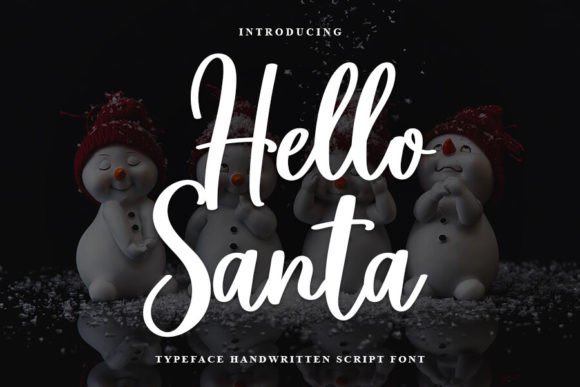
Hello Santa Font: A Timeless Classic for Modern Designs
Hello Santa Font is a stylish handwritten font that brings a touch of classic elegance to modern designs. Inspired by timeless calligraphy, this font boasts a contemporary atmosphere and impeccable form, making it perfect for a wide range of projects. In this article, we’ll dive into the world of Hello Santa Font, exploring its features, benefits, and uses.
Key Features of Hello Santa Font
- Balanced and Varied: Hello Santa Font strikes the perfect balance between thickness and thinness, creating a visually appealing and dynamic look.
- Contemporary Atmosphere: With its modern take on classic calligraphy, Hello Santa Font brings a fresh and sophisticated feel to any design.
- Impeccable Form: The font’s precise and elegant lines ensure that it remains legible and beautiful, even at smaller sizes.
- Handwritten Style: Hello Santa Font’s handwritten style adds a personal touch to designs, making them stand out from the crowd.
The Benefits of Using Hello Santa Font
Hello Santa Font offers a range of benefits that make it an excellent choice for designers and crafters. Some of the key advantages of using this font include:
- Enhances Readability: The font’s clear and balanced design ensures that text remains easy to read, even at smaller sizes.
- Boosts Creativity: Hello Santa Font’s unique and stylish design inspires creativity and imagination, making it perfect for projects that require a personal touch.
- Versatile: This font can be used for a wide range of projects, from logos and branding to invitations and digital marketing materials.
The Many Uses of Hello Santa Font
Hello Santa Font is a versatile font that can be used for a wide range of projects. Some popular uses for this font include:
- Logos and Branding: The font’s stylish and elegant design makes it perfect for logos, business cards, and other branding materials.
- Invitations and Events: Hello Santa Font’s handwritten style and classic elegance make it ideal for invitations, wedding stationery, and other event materials.
- Digital Marketing: The font’s modern take on classic calligraphy makes it perfect for digital marketing materials, such as social media graphics and email newsletters.
- Crafting and DIY: Hello Santa Font’s unique and stylish design makes it a great choice for crafters and DIY enthusiasts, particularly for projects such as handmade cards and gift tags.
The Style and Elegance of Hello Santa Font
Hello Santa Font’s stylish and elegant design is one of its standout features. The font’s precise and balanced lines create a beautiful, handwritten look that is both classic and modern.
The font’s design is inspired by timeless calligraphy, with a focus on elegance and sophistication. The result is a font that is both refined and stylish, making it perfect for projects that require a touch of class.
Tips and Tricks for Using Hello Santa Font
To get the most out of Hello Santa Font, here are a few tips and tricks to keep in mind:
- Experiment with Sizes: Hello Santa Font looks great at a range of sizes, from small and delicate to large and bold. Experiment with different sizes to find the one that works best for your project.
- Pair with Other Fonts: Hello Santa Font pairs well with other fonts, particularly those with a similar style or theme. Experiment with different font combinations to find the one that works best for your project.
- Use for Headings and Titles: The font’s elegant and stylish design makes it perfect for headings and titles. Use it to add a touch of sophistication to your project.
Hello Santa Font is a stylish and elegant font that brings a touch of classic sophistication to modern designs. With its balanced and varied design, impeccable form, and contemporary atmosphere, this font is perfect for a wide range of projects. Whether you’re a designer, crafter, or DIY enthusiast, Hello Santa Font is a great choice for adding a personal touch to your work.